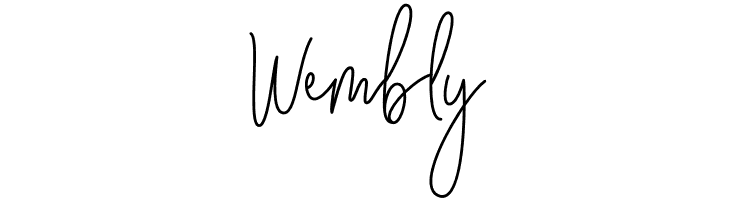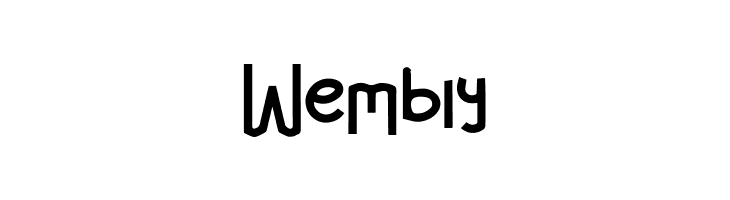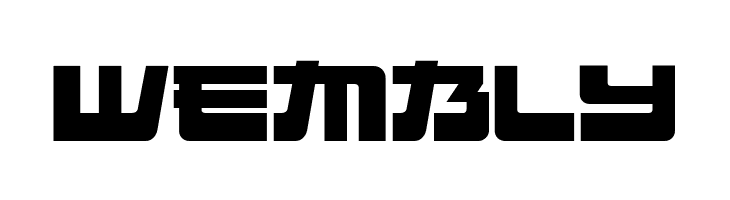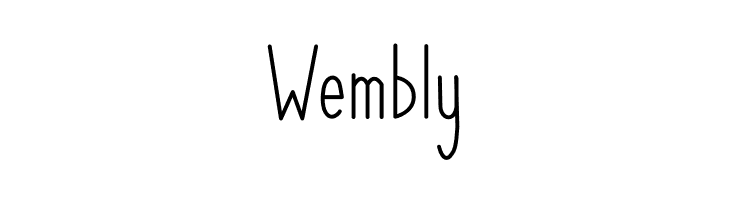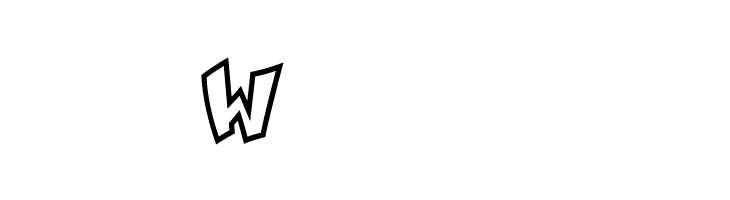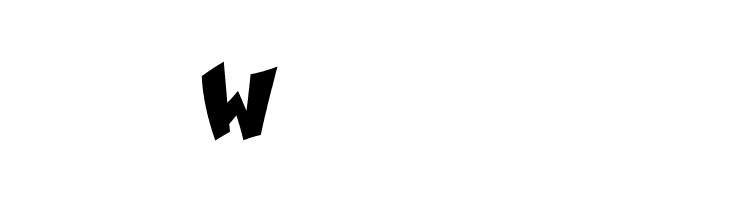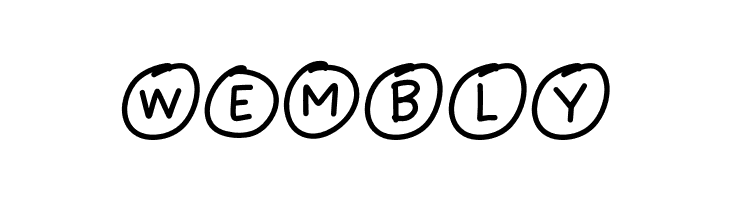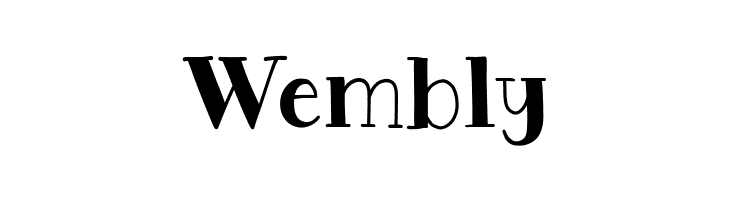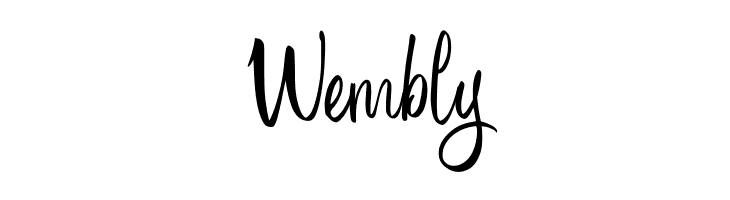
• City Of Panonama Italic
Energetic, slanted script with bold, sweeping strokes.
• City of Rain
A playful, hand-drawn font with an artistic and whimsical style.
• CITY OF ROCK
A geometric, angular font with a futuristic and edgy style.
• City of Sympathy
Expressive handwritten script font.
• City Player
A bold, graffiti-inspired font with a dynamic and playful style.
• City Player Black
A bold, dynamic font with a playful, graffiti-like style.
• City Series
A playful and quirky font with a hand-drawn, whimsical style.
• City Shine
A dynamic and fluid script font with a modern, elegant style.
• City Signs JL
Bold, clear, and highly legible font ideal for public signage.
• City Streetwear Regular
A dynamic, handwritten font with an urban, street-art-inspired style.
• City Streetwear Regular
A modern, handwritten font with fluid, interconnected strokes and high contrast.
• CITY_LIFE
A bold, graffiti-inspired font with dynamic, hand-drawn characters.
• CityBirds
A playful, dynamic handwritten font with fluid strokes and lively character.
• Citybold
A bold, slanted font with sharp, angular edges and high contrast.
• cityburn
• Cityexbold
A bold, slanted font with sharp, angular edges and a modern, dynamic style.
• CityHeights
A bold, distressed font with a grunge texture and urban flair.
• Citylight